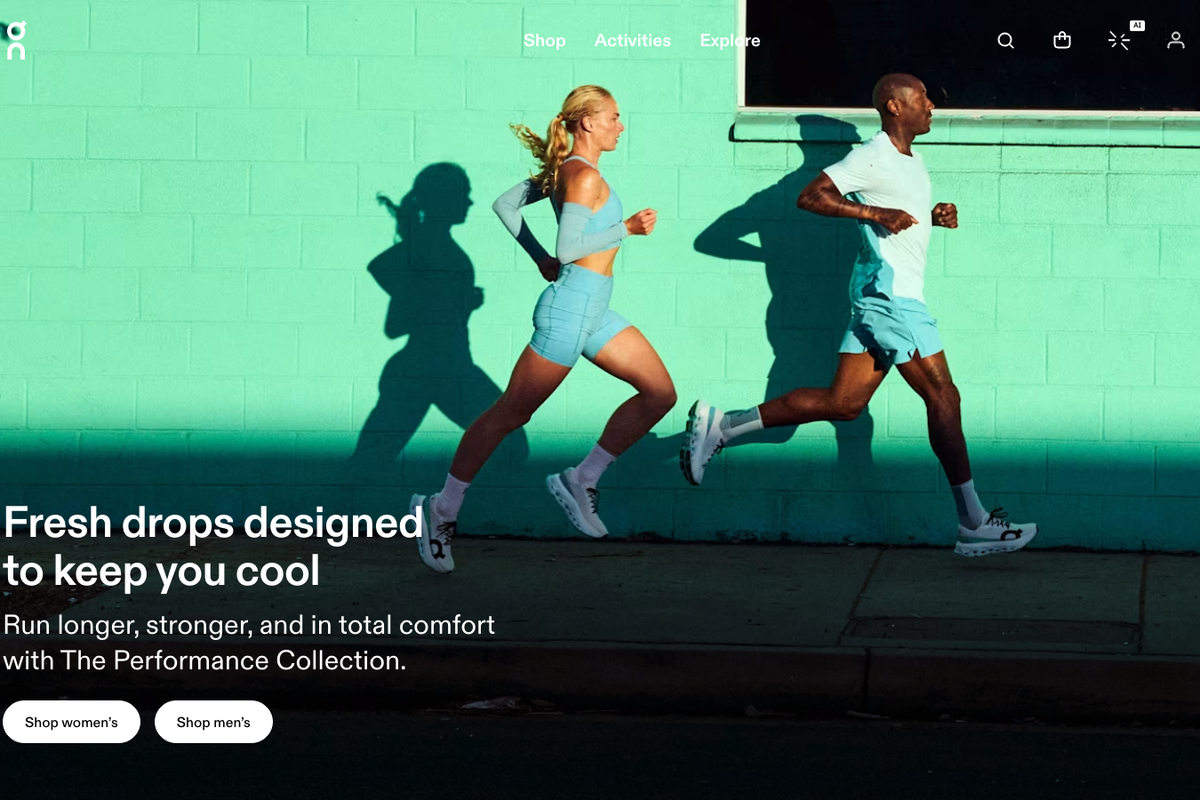
On Uses ABC Diatype
Most brand typefaces are licensed. A few are commissioned. On's is neither, quite — it is an existing typeface bent toward a specific physical sensation.
On is a Swiss running brand built on one claim: that its cushioning makes running feel like floating. The whole product line, the marketing, the name of the CloudTec sole — everything routes back to that single idea. So when the brand needed a typeface, the question wasn't "what looks Swiss" but "what does floating look like as a letterform."
From Diatype to On Diatype
ABC Diatype is a neo-grotesque released by Dinamo in 2019, drawn by Erkin Karamemet. It began as a student exploration of the Swiss neo-grotesque tradition, and its name refers to the clunky pre-digital typesetting machines whose mechanical constraints shaped its forms.
That origin matters, because a neo-grotesque is not obviously a floating typeface. Akzidenz-Grotesk, Helvetica and their descendants are rational, tightly-fitted, slightly industrial. They are engineered, not buoyant.
Dinamo describes the commission in its own words:
On got in touch with us to create a bespoke font customization of Diatype for its new branding. Given the sport brand's goal to revolutionize the experience of running to make it feel like you're floating on clouds, we tweaked Diatype's characters to make them feel ultra smooth, airy, and extra round.
Three adjustments, and all three are visible on the homepage: smooth, airy, round.
What actually changed
Look at the headline — "Fresh drops designed to keep you cool" — and compare it mentally to Helvetica.
The bowls are rounder. Where a strict neo-grotesque squares off the curve of a d or an o as it meets the stem, On Diatype keeps the curve continuous. The counters read as circles rather than as compressed ovals.
The terminals are softer. The cuts on the s, c and e are less abrupt, which removes the slight severity that makes Helvetica feel institutional.
And the fit is looser than a classic grotesque. That is the "airy" part, and it is the change that does the most work. Neo-grotesques are traditionally set tight — it is part of why they feel dense and corporate. Opening the spacing lets the line breathe without changing a single letterform, and it is why On's navigation reads as calm rather than efficient.
The wordmark takes the logic furthest. The two letters of "On" are reduced to a circle and a rounded arch — barely letters at all, closer to a pictogram of the cushioning itself.
Why not just use a rounded sans?
Because the result would have been friendly rather than precise, and On is a Swiss engineering brand as much as a lifestyle one. It sells a patented sole structure.
A fully rounded typeface — the Comfortaa, VAG Rounded end of the spectrum — reads as approachable, playful, soft in a way that undercuts a technical claim. Starting from a neo-grotesque and softening it keeps the Swiss rigour underneath. The type is still rational; it has just had its edges taken off.
That is the whole trick, and it is a genuinely elegant piece of brand typography: the structure says engineered, the treatment says weightless, and both claims are things the product actually makes.
Free Alternative: Inter
Inter is the closest free starting point, and the gap is smaller than you'd expect. It is a neo-grotesque with a tall x-height and open apertures, drawn for screens, with a full 100–900 variable range.
To move it toward On Diatype's register, the adjustment is mostly spacing rather than shape:
For rounder forms out of the box, Manrope is the better match — a semi-geometric sans with noticeably circular bowls and softer joins, variable 200–800. It gives you more of the "extra round" quality at the cost of some neo-grotesque discipline.
Hubot Sans is worth a look for a different reason: it carries a wdth axis (75–125) alongside weight, so a brand system built on it can flex between condensed navigation and wide display settings from one file — the kind of range a bespoke commission would otherwise buy you.
What none of them replicate is the wordmark. That is custom drawing, not a font, and it should be.